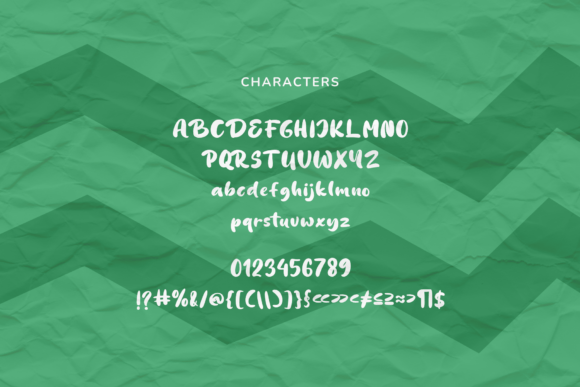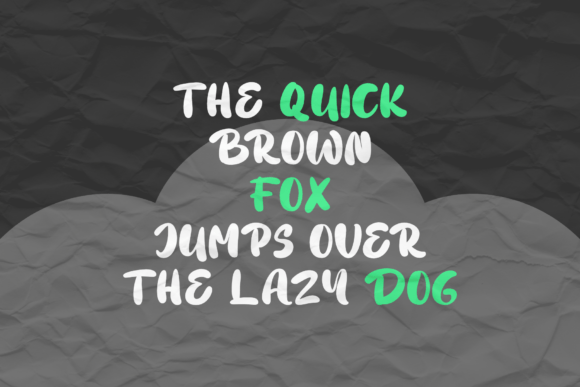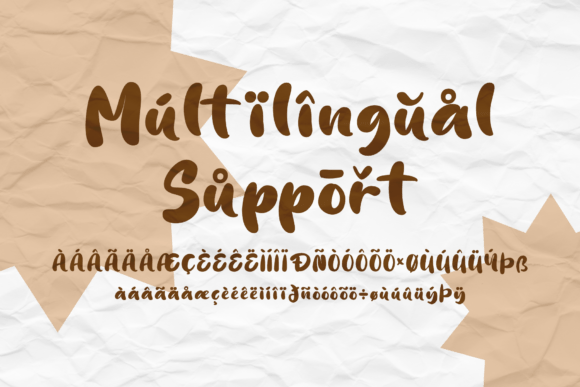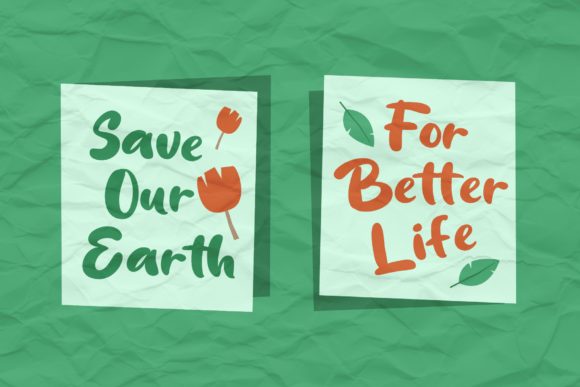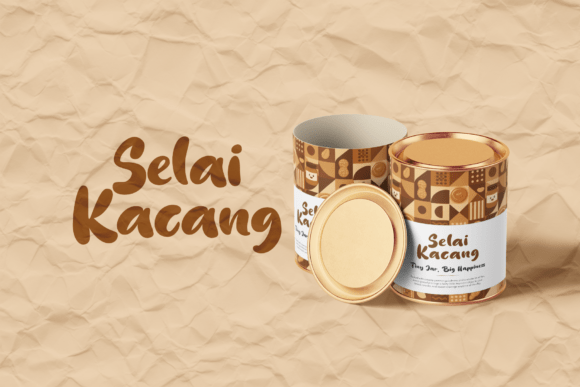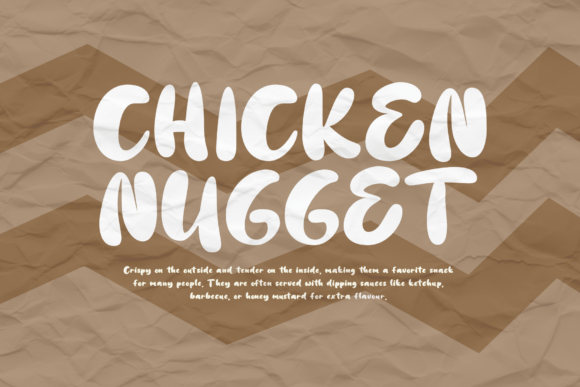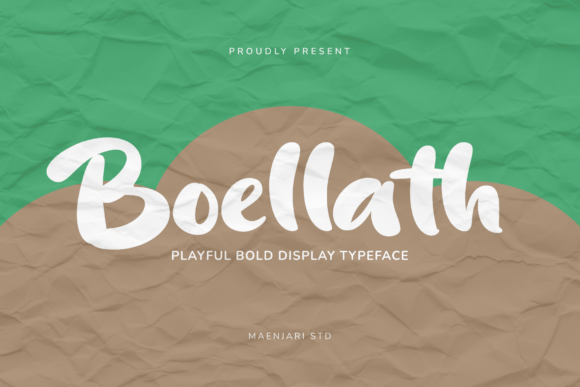
Introducing Boellath: The Ultimate Cute Bubbly Font for Crafting and Food Packaging
Are you on the hunt for a bold, friendly, and easy-to-read font for your next crafting or merchandise business project? Look no further than Boellath, a premium playful bold display font designed to bring a fun, hand-made vibe to your creative workspace. With its thick strokes and solid structures, Boellath is exceptionally legible, ensuring it looks amazing on both screen designs and physical products.
What Makes Boellath Special?
Boellath is more than just a font – it’s a game-changer for crafters, designers, and small business owners. Here are just a few reasons why:
- Cheerful, ultra-bold handwritten glyphs: Boellath features cheerful, ultra-bold handwritten glyphs (A-Z, a-z) and clean numerals that are sure to add a pop of personality to your designs.
- Perfectly smoothed vector paths: The font’s perfectly smoothed vector paths make it ideal for cutting machine operations, ensuring effortless weeding and cutting.
- Fully PUA encoded: Boellath is fully PUA encoded, giving you instant, hassle-free access to all glyphs, numbers, and punctuation marks in any software – no professional design applications required.
Ideal Uses for Boellath
Boellath is highly recommended for a variety of creative projects, including:
- Cricut and Silhouette crafters: Boellath’s smooth vector paths and bold glyphs make it perfect for cutting machines and crafters.
- Vinyl sticker businesses: The font’s thick strokes and solid structures ensure that your stickers will stand out and look amazing.
- Print-on-demand t-shirts: Boellath’s bold and playful design makes it ideal for custom t-shirts and apparel.
- Custom product labels: Add a personal touch to your product labels with Boellath’s cheerful and ultra-bold glyphs.
- Teacher resources: Boellath is perfect for teachers looking to add a fun and playful touch to their classroom materials.
- Vibrant kids’ birthday party favors: Create custom party favors that will delight kids and parents alike with Boellath’s bubbly design.
Why You’ll Love Boellath
Here are just a few reasons why Boellath is a must-have font for designers and crafters:
- Easy to read: Boellath’s bold glyphs and clean design make it exceptionally easy to read, even at small sizes.
- Versatile: Boellath is perfect for a wide range of creative projects, from crafting and scrapbooking to custom apparel and product labels.
- Hassle-free: With its PUA encoding, Boellath is easy to use in any software, without the need for professional design applications.
Tips for Using Boellath
Here are a few tips for getting the most out of Boellath:
- Experiment with different colors: Boellath’s bold design looks amazing in a wide range of colors, so don’t be afraid to get creative!
- Pair with other fonts: Boellath pairs perfectly with other playful fonts, so try combining it with your favorite font for a unique look.
- Use for sublimation: Boellath is ideal for sublimation projects, such as custom mugs, water bottles, and more.
In conclusion, Boellath is a premium playful bold display font that’s perfect for crafters, designers, and small business owners looking to add a fun and playful touch to their creative projects. With its thick strokes, solid structures, and PUA encoding, Boellath is easy to use and exceptionally legible. Whether you’re creating custom apparel, product labels, or party favors, Boellath is the perfect font for you.